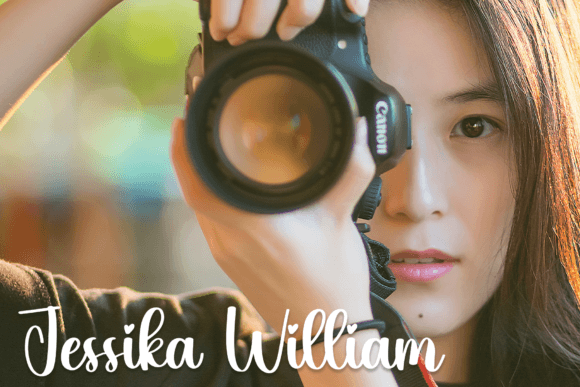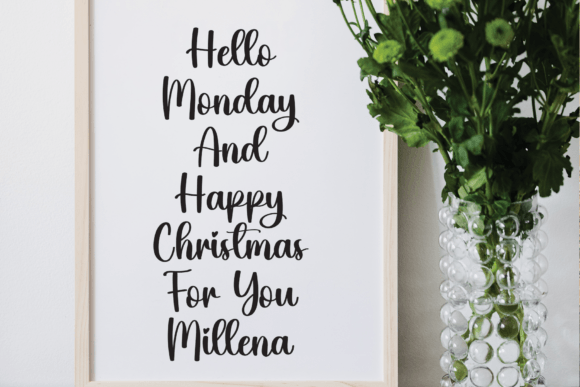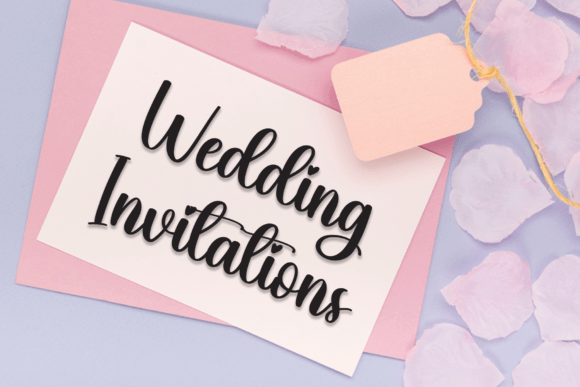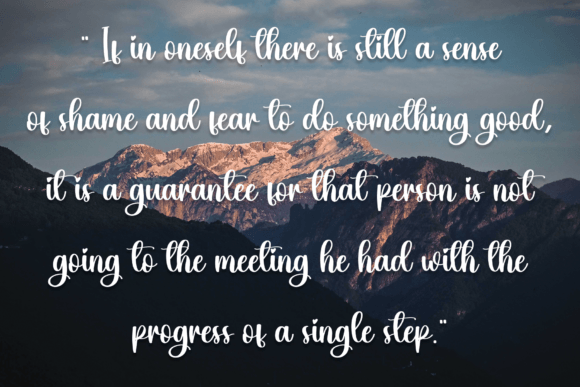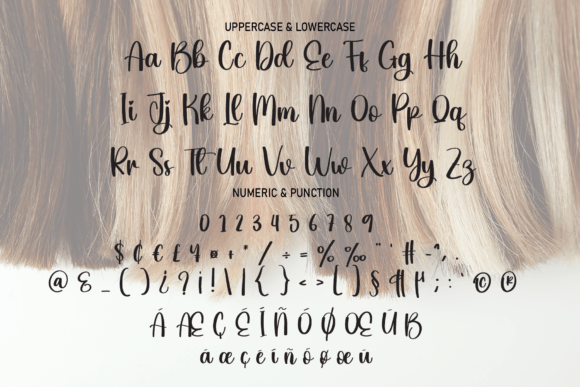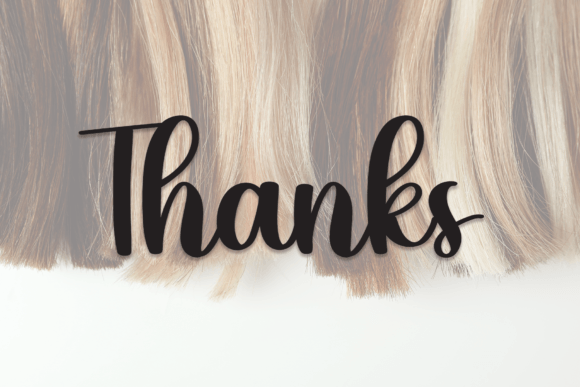
Thick Font
What Is Thick Font?
Thick Font is a stylish handwritten typeface that brings a personal touch to your designs. Its smooth and modern letters help you create visual interest and connect with your audience in a friendly way.
You can use Thick Font in many creative projects. For example, it works well in wall displays that need to stand out. It also adds elegance to wedding invitations and event materials. If you design social media posts or logos, this font gives them a unique character.
Moreover, brands often use Thick Font in packaging to create a handcrafted look. Labels for gourmet foods, beauty products, or handmade crafts become more appealing with its warm style. You can also add it to advertisements to make them more memorable and engaging.
Why Choose Thick Font?
This font is easy to read, even in small sizes. Its clean strokes keep your message clear and strong. In addition, Thick Font supports various file formats and works well in print and digital designs.
Photographers love using it for watermarks. It marks their work without distracting from the image itself. You can also use it on stationery or custom gifts. As a result, your projects will feel thoughtful and professional.
How Does It Help Branding?
Thick Font helps brands share their story in a genuine way. Its handwritten style makes people feel closer to your products and services. Many designers prefer it because it balances a modern look with a warm, handcrafted feel.
Furthermore, this typeface suits different industries. Whether you work in fashion, food, events, or social media, it adapts to your needs. The letters flow naturally, so your designs appear smooth and balanced.